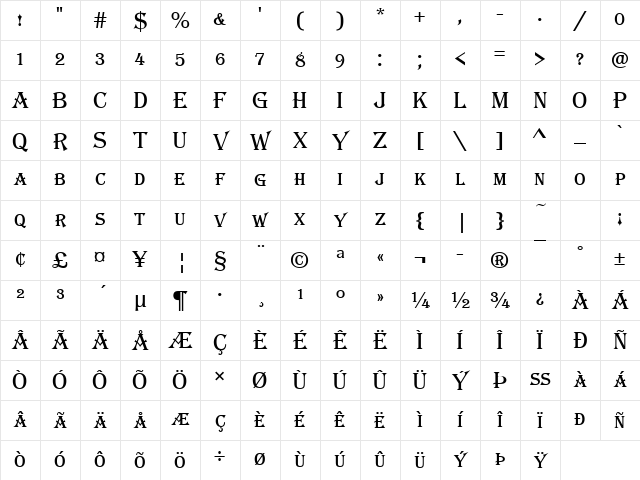
Algerian Becker Basic Caps Regular
Complete Algerian Becker Basic Caps Regular glyph index. Displaying only characters natively supported by Algerian Becker Basic Caps Regular font.
Design Context for Algerian Becker Basic Caps
Algerian Becker Basic Caps is a composed and adaptable typeface that performs quietly and consistently across a wide range of design contexts.
Pro Tip: Use Algerian Becker Basic Caps in both headline and body roles to test its range before committing to a single application.